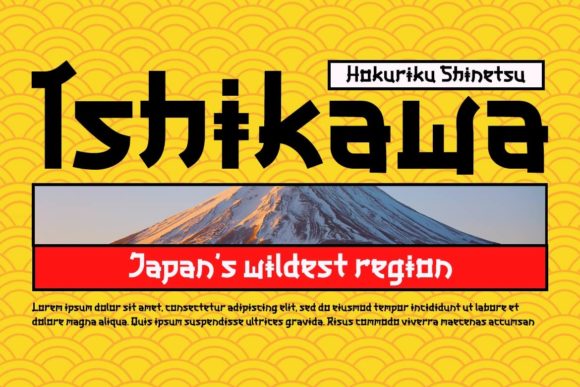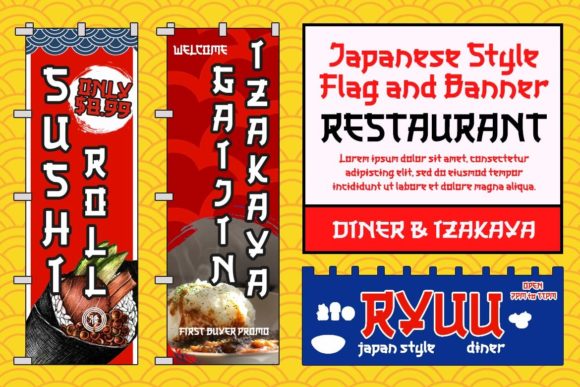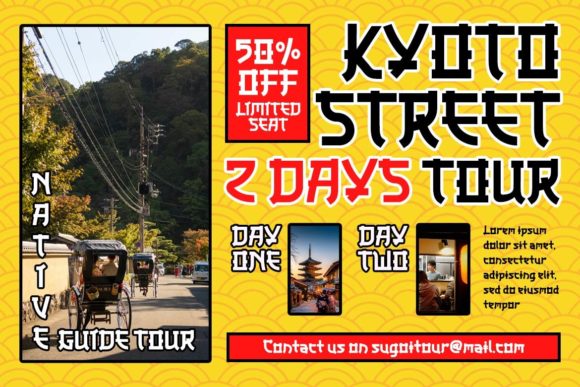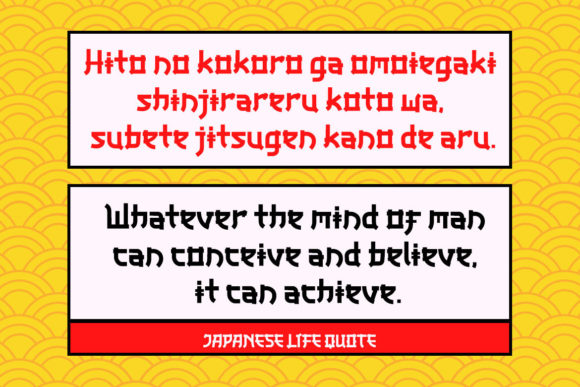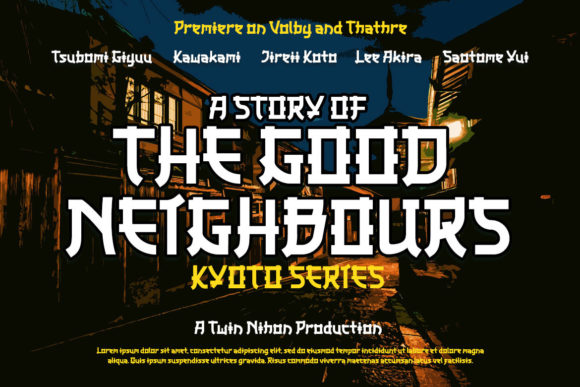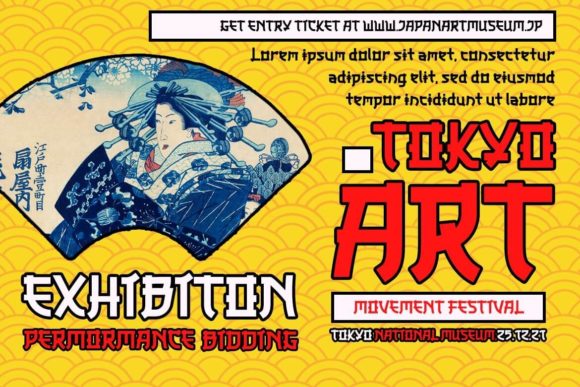
Badora Faux Japanese Font: Elevate Your Designs with a Unique and Captivating Typeface
In the world of typography, a font can make or break a design. It’s the perfect blend of form and function, aesthetics and readability. For designers and crafters looking to add a touch of elegance and whimsy to their projects, the Badora Faux Japanese Font is an excellent choice. This display font, with its distinctly Japanese flair, is sure to elevate your designs and leave a lasting impression on your audience.
The Story Behind Badora
Badora is a display font that was created using natural handwriting, carefully modified in visual form to make it suitable for a wide range of applications. The result is a unique and captivating typeface that exudes a sense of casualness and fun. The font’s natural, handwritten feel makes it perfect for designs that require a personal touch, while its Japanese-inspired aesthetic adds an exotic and sophisticated element.
The versatility of Badora Faux Japanese Font is one of its most significant advantages. This font can be used in a multitude of design projects, including:
- Logotypes: Create a memorable brand identity with Badora’s distinctive and stylish lettering.
- Food banners: Add a touch of whimsy and fun to your food-related designs, such as restaurant menus, food blogs, or cookbooks.
- Branding: Use Badora to create eye-catching brand names, taglines, or product labels that stand out from the crowd.
- Brochures: Add a dash of elegance and sophistication to your marketing materials with Badora’s beautiful typography.
- Posters: Create striking posters for events, concerts, or exhibitions with Badora’s bold and attention-grabbing font.
- Movie titles: Give your film or video project a professional and cinematic look with Badora’s stylish and dramatic typography.
- Book titles: Add a touch of whimsy and personality to your book covers or title pages with Badora’s unique font.
- Quotes: Use Badora to create inspiring and visually appealing quote graphics for social media or blogs.
Why Choose Badora Faux Japanese Font?
So, what sets Badora apart from other fonts? Here are just a few reasons why designers and crafters love this font:
- Unique and eye-catching: Badora’s distinctive Japanese-inspired aesthetic makes it a standout in any design.
- Casual and fun: The font’s natural, handwritten feel adds a touch of whimsy and playfulness to any design.
- Versatile: Badora can be used in a wide range of design projects, from branding and advertising to publishing and entertainment.
- Easy to read: Despite its unique aesthetic, Badora remains highly readable, making it perfect for body text or headlines.
Tips for Using Badora Faux Japanese Font
To get the most out of Badora, here are a few tips to keep in mind:
- Experiment with colors: Badora looks great in a variety of colors, so don’t be afraid to try out different hues and combinations.
- Mix and match: Combine Badora with other fonts to create a unique and visually appealing typography.
- Pay attention to spacing: Make sure to adjust the spacing between letters and words to ensure optimal readability.